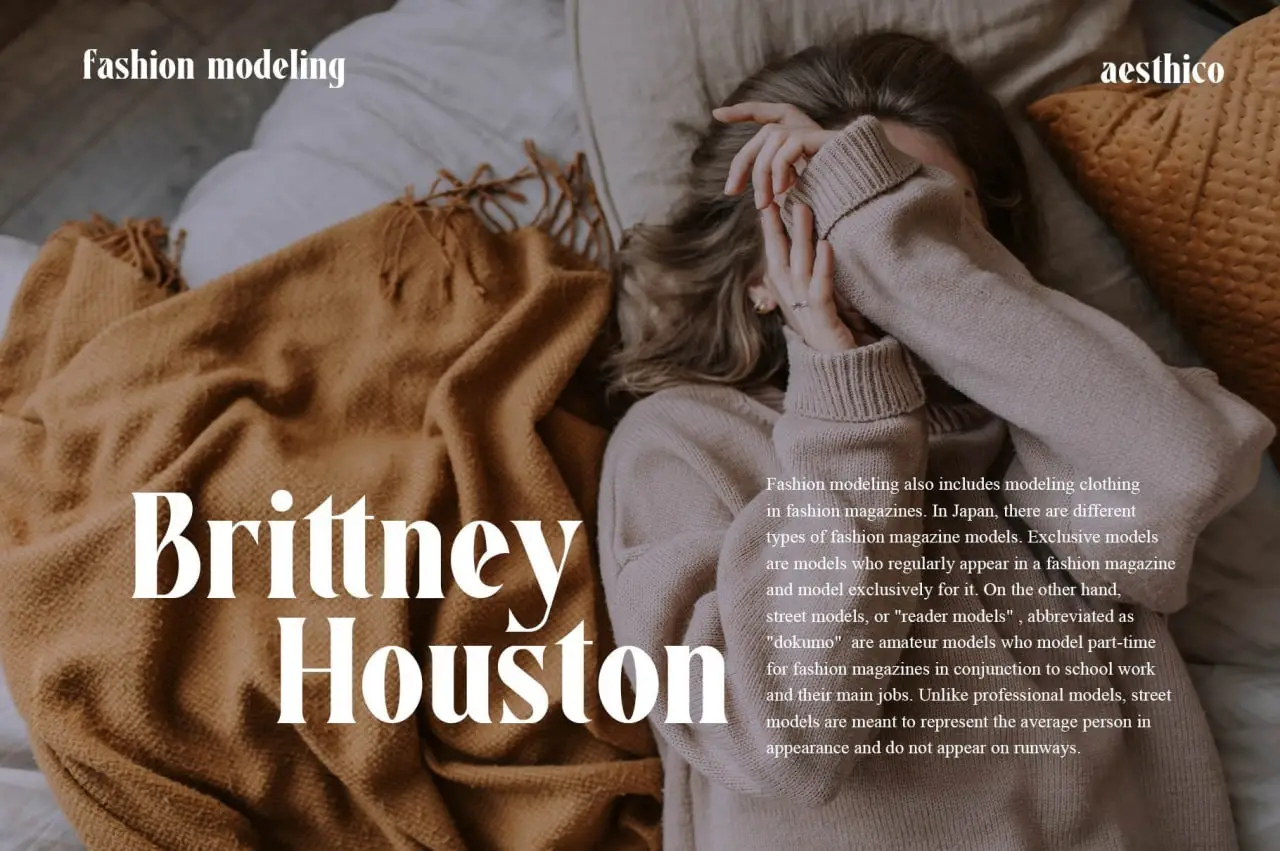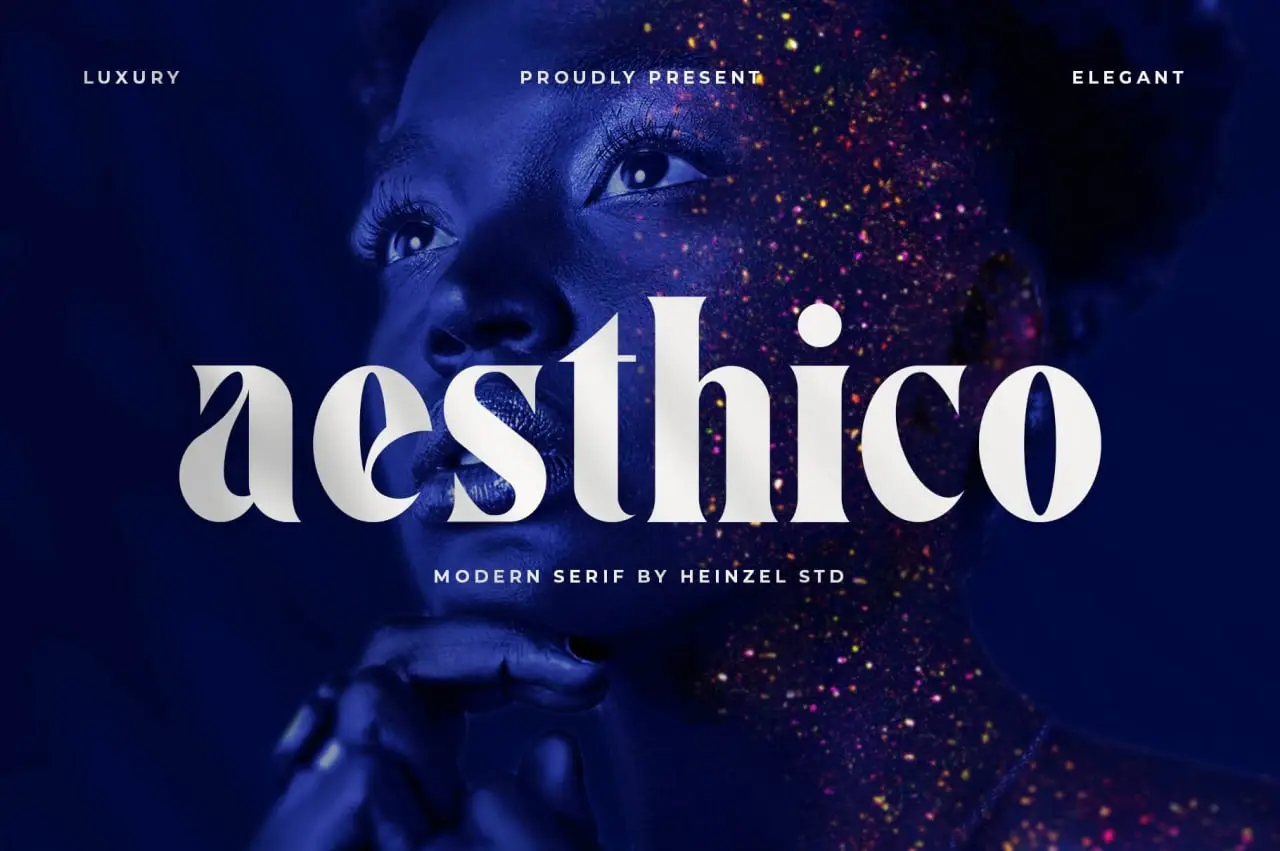
Aesthico Font
The Aesthico Font is a modern typeface designed to bring a touch of elegance and sophistication to your projects. With its clean lines and contemporary style, this font is perfect for a variety of applications, including branding, logos, web design, and print materials.
• Stylish and modern design
Utilize Aesthico Font to create stunning visuals for websites, social media graphics, business cards, and promotional materials. Its versatility makes it suitable for both digital and print applications.